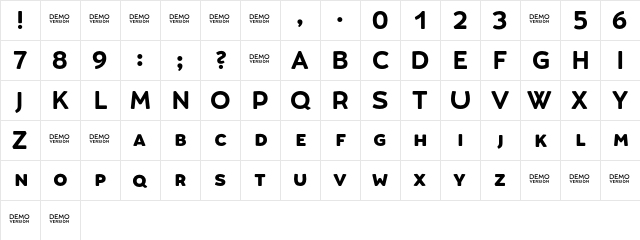
Umba Soft SC Bold Demo
Design Context for Umba Soft Typeface
Umba Soft is a composed and adaptable typeface that performs quietly and consistently across a wide range of design contexts. The heavy weight commands attention and anchors typographic hierarchies.